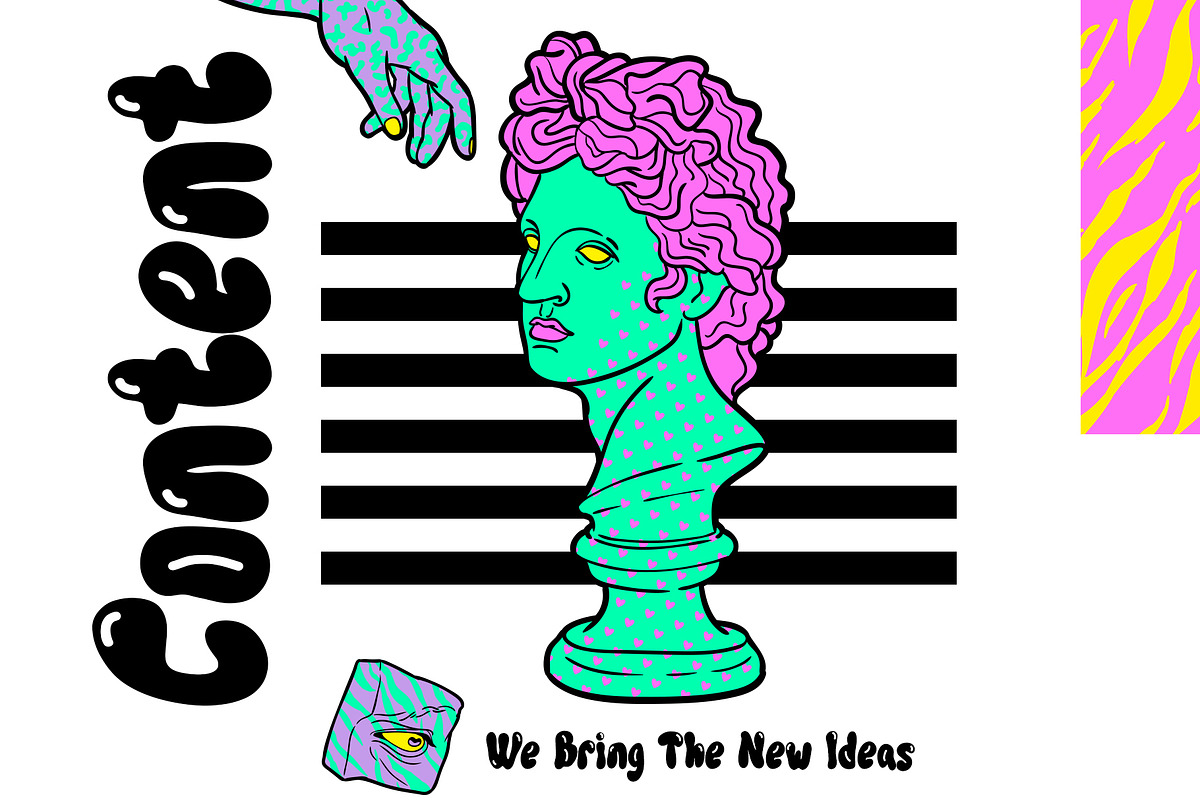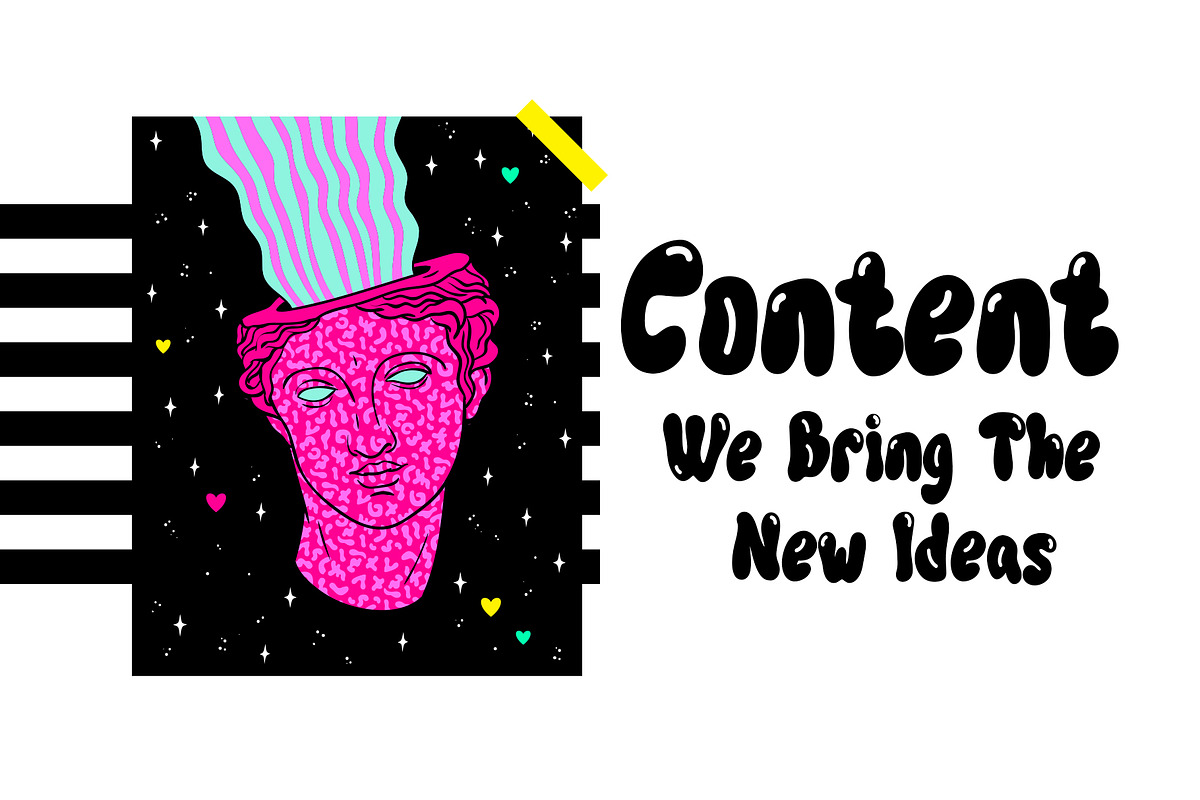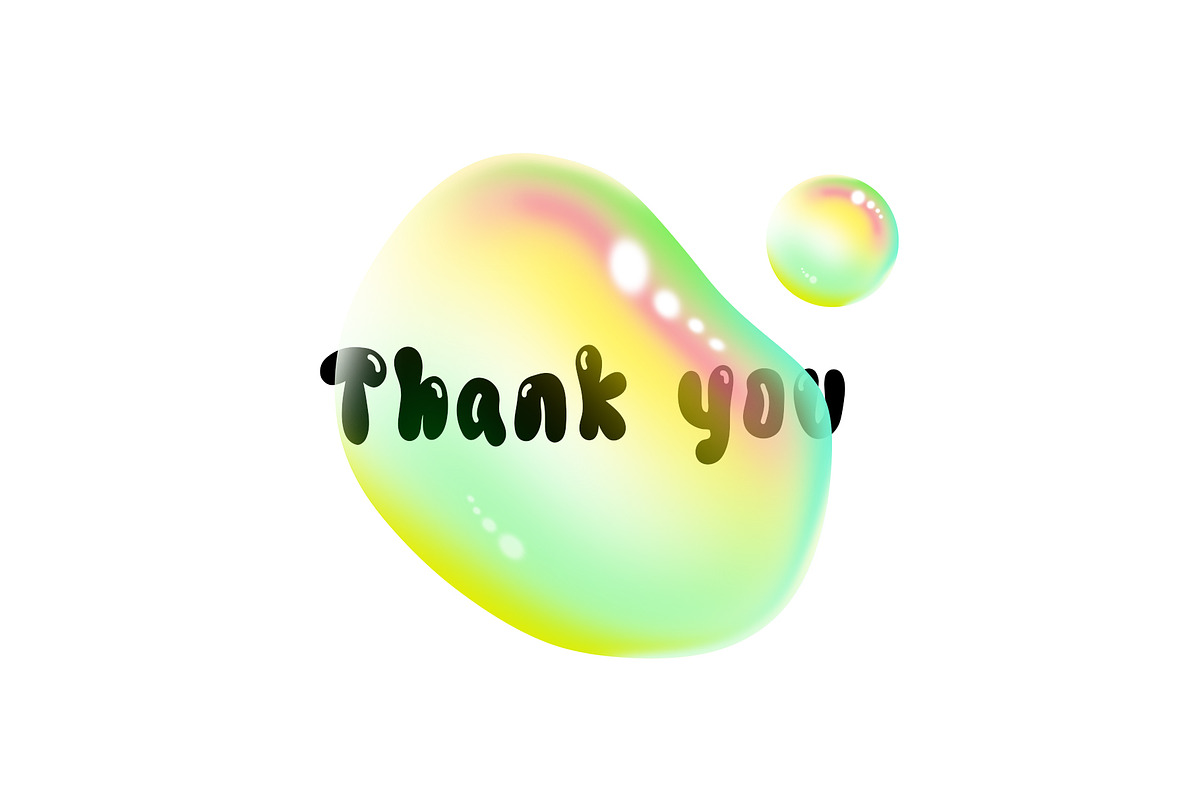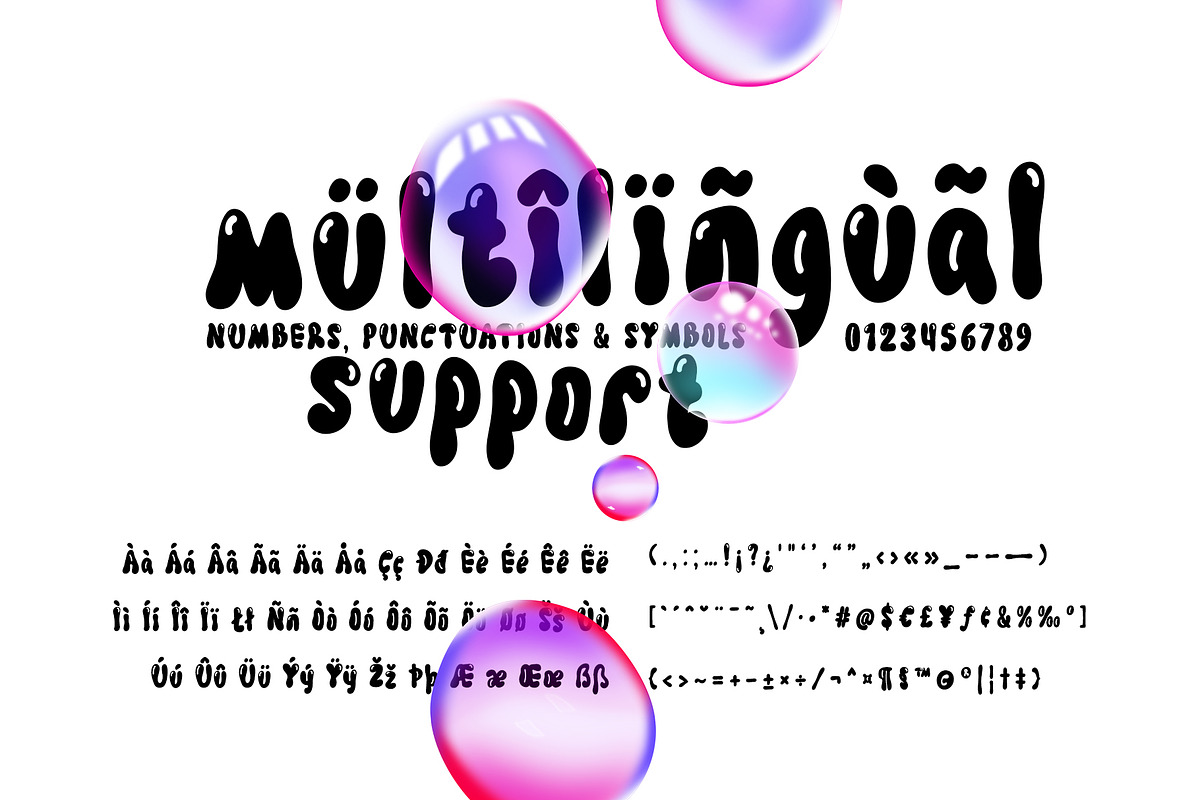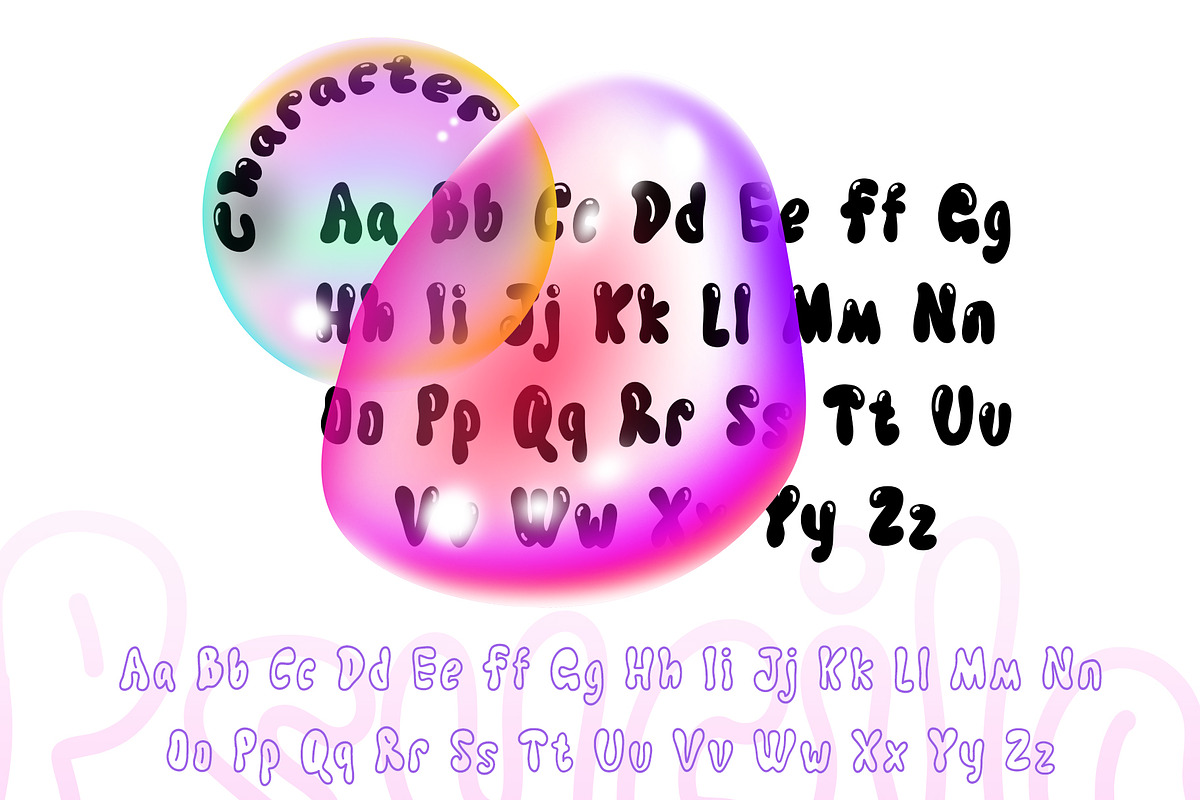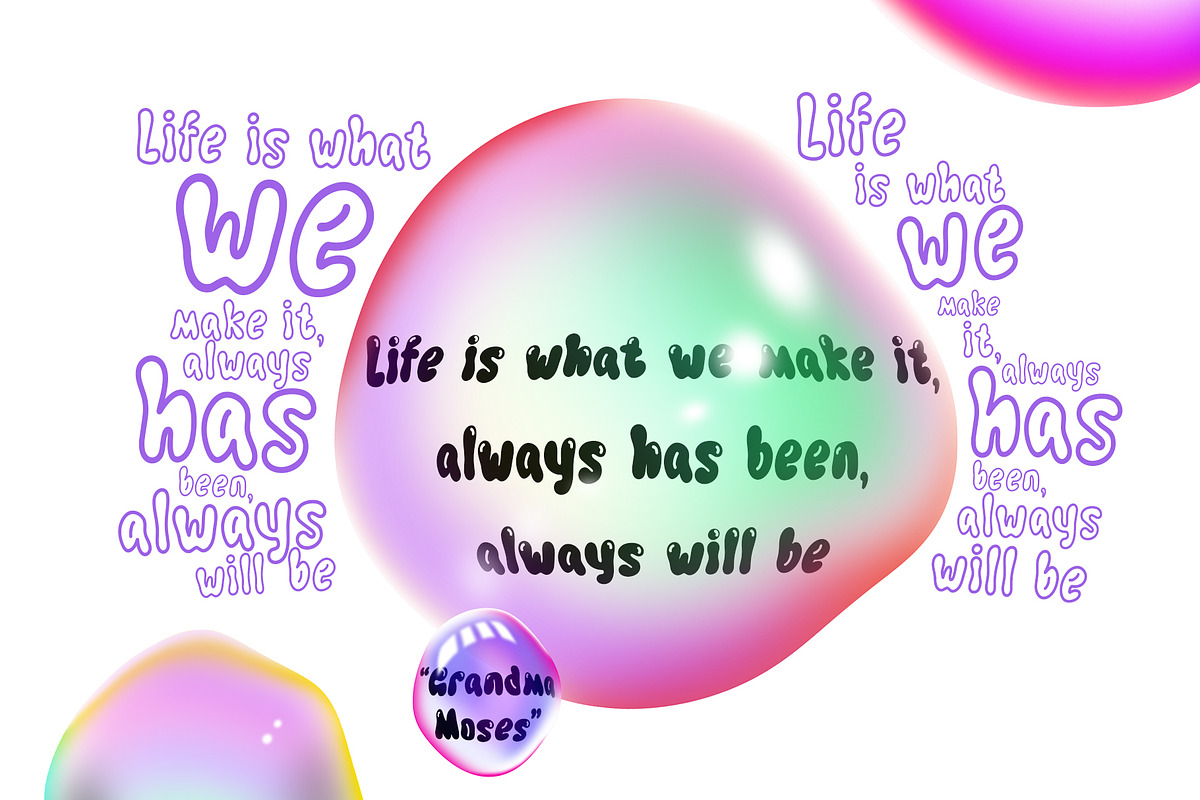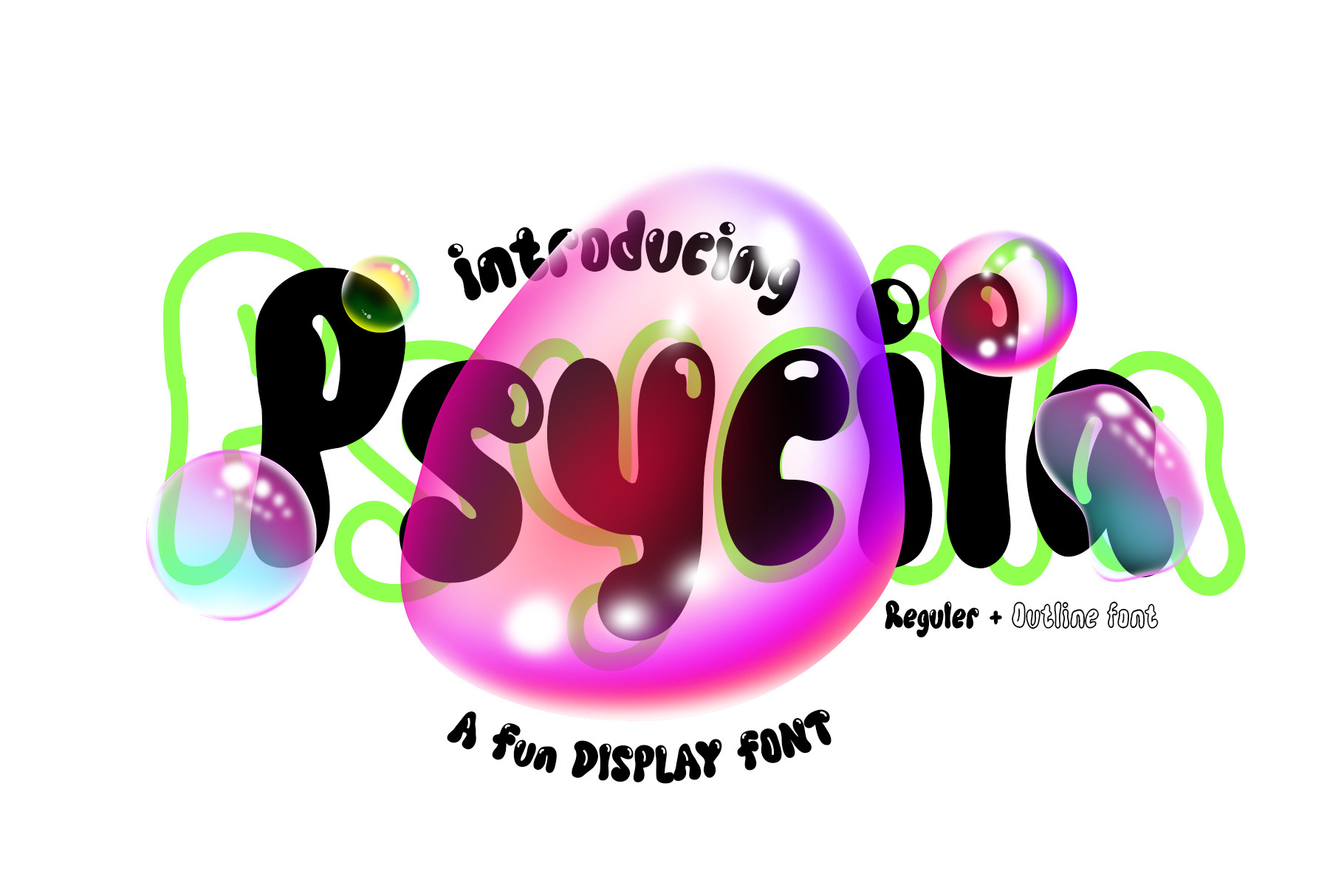
Psycila A Fun Display Font
Psycila font is inspired by the unique and eccentric art style of Psychedelic art. It is designed to reflect the beauty and madness of the Psychedelic art movement, which merges vibrant colors, circular shapes, and intricate patterns, centered around intense visual experiences.
The history behind the creation of this font begins with our fascination with the popular Psychedelic art movement of the 1960s. This movement became a means of artistic expression that combined bold colors, circular shapes, and complex patterns and motifs. We wanted to bring these elements into a font that could be used to create captivating and visually pleasing designs.
Psycila is the result of our exploration in combining Psychedelic aesthetics with unique typography. Each letter and character is filled with circular, patterned, and expressive curves. This font is suitable for various creative projects that aim to evoke a Psychedelic impression, such as concert posters, music album designs, art exhibitions, and more.
By using the Psycila font in your design journey, you will bring the life and madness of the Psychedelic art movement into your work. This font will add an eccentric and captivating touch to your designs, creating intense visual experiences that invite you into a colorful and circular world of Psychedelia.